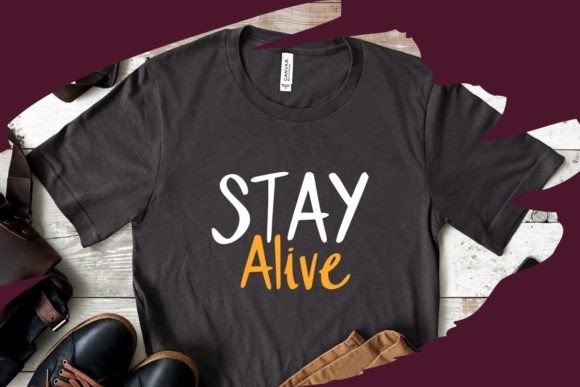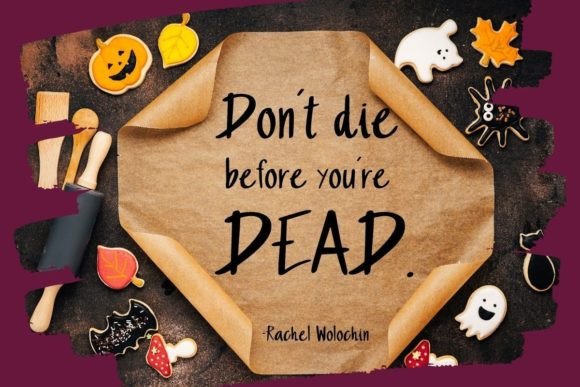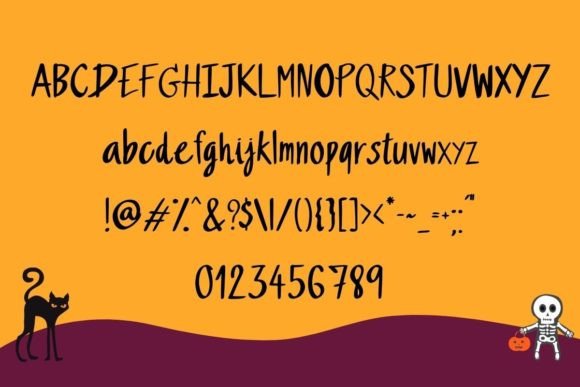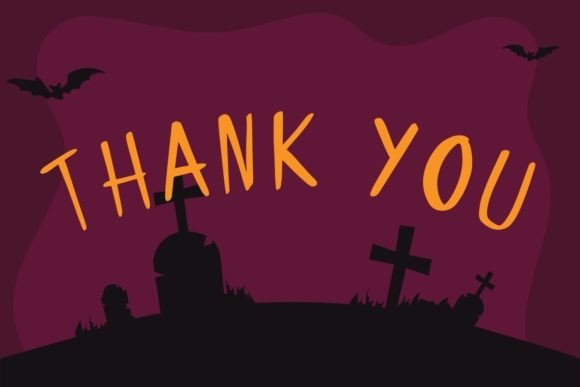
Unleash the Magic of Drag Queen Font: A Spooktacular Addition to Your Design Arsenal
Are you ready to add a dash of whimsy and a pinch of spookiness to your designs? Look no further than the Drag Queen Font, a fun and scary handwritten font that’s perfect for all your Halloween projects and beyond! With its unique blend of playfulness and mystery, this font is sure to cast a spell on your audience and leave them begging for more.
The Perfect Blend of Whimsy and Mystery
Drag Queen Font is a masterful creation that combines the best of both worlds: whimsy and scariness. Its handwritten style gives it a personal and intimate feel, while its slightly mysterious tone adds a layer of intrigue that’s sure to captivate your audience. Whether you’re designing for Halloween, a themed party, or just want to add some personality to your project, this font is the perfect choice.
Endless Possibilities: Where Imagination Knows No Bounds
The only limit to what you can create with Drag Queen Font is your imagination! This versatile font can be used for a wide range of projects, from:
• Halloween-themed designs, such as invitations, posters, and party decorations
• Themed party invitations and decorations
• Blog and website headers
• Digital and print crafts, such as planners, journals, and stickers
• And so much more!
Why Designers and Crafters Love Drag Queen Font
Drag Queen Font has quickly become a favorite among designers and crafters, and for good reason. Here are just a few reasons why:
• Unique and eye-catching: This font stands out from the crowd, adding a touch of personality and whimsy to any design
• Easy to read: Despite its playful style, Drag Queen Font is surprisingly easy to read, making it perfect for both headlines and body text
• Versatile: Use it for a wide range of projects, from digital designs to print crafts
• High-quality: This font is carefully crafted to ensure high-quality results, even at large sizes
Tips and Tricks for Getting the Most Out of Drag Queen Font
To help you get started with Drag Queen Font, here are a few tips and tricks:
• Experiment with colors: This font looks great in a range of colors, from bright and bold to muted and pastel
• Play with textures: Add some extra depth and interest to your design with textures and patterns
• Mix and match: Combine Drag Queen Font with other fonts and graphics to create a unique look
• Don’t be afraid to get creative: The more you experiment, the more you’ll discover the possibilities of this amazing font!
In conclusion, Drag Queen Font is a must-have addition to any designer’s or crafter’s arsenal. With its unique blend of whimsy and scariness, this font is perfect for all your Halloween projects and beyond. So why wait? Unleash the magic of Drag Queen Font and let your imagination run wild!
Whether you’re a seasoned designer or a crafty beginner, Drag Queen Font is sure to inspire and delight. So go ahead, get creative, and show the world what you’re working with!